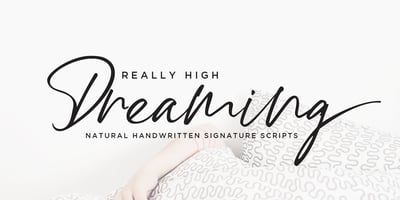
High Dreaming
High Dreaming font
High Dreaming Font Family was designed by Sarwo Edhi Prayitno and published by Haksen. High Dreaming contains 2 styles and family package options. High Dreaming is a stylish modern and natural handwritten script font with casual chic flair. It is perfect for branding, wedding invites and cards, and maybe for red wine label. High Dreaming includes full set of gorgeous uppercase and lowercase letters, numerals, a large range of punctuation and ligatures. All lowercase letters of High Dreaming Regular include ending swashes, giving realistic hand-lettered style. What you get? You will get: High Dreaming OTF High Dreaming Alternate OTF In order to use the beautiful swashes, you need a program that supports OpenType features such as Adobe Illustrator CS, Adobe Photoshop CC, Adobe Indesign and Corel Draw. but if your software doesn’t have Glyphs panel, you can install additional swashes font files: Thanks and have a great day, Haksen